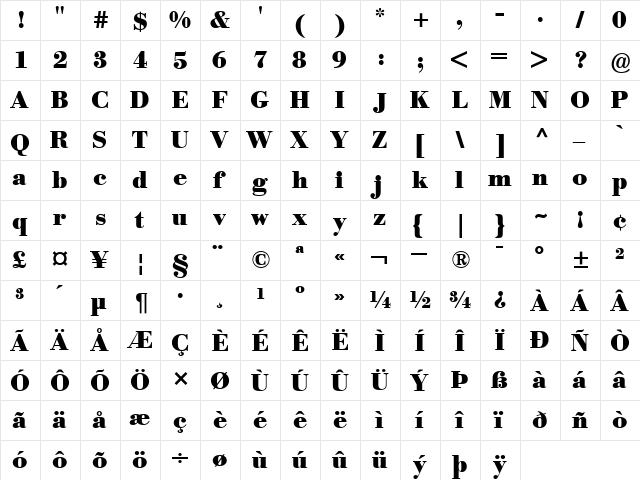
BodoniBE Bold
Design Context for BodoniBE Typeface
BodoniBE is a composed and adaptable typeface that performs quietly and consistently across a wide range of design contexts. The heavy weight commands attention and anchors typographic hierarchies.